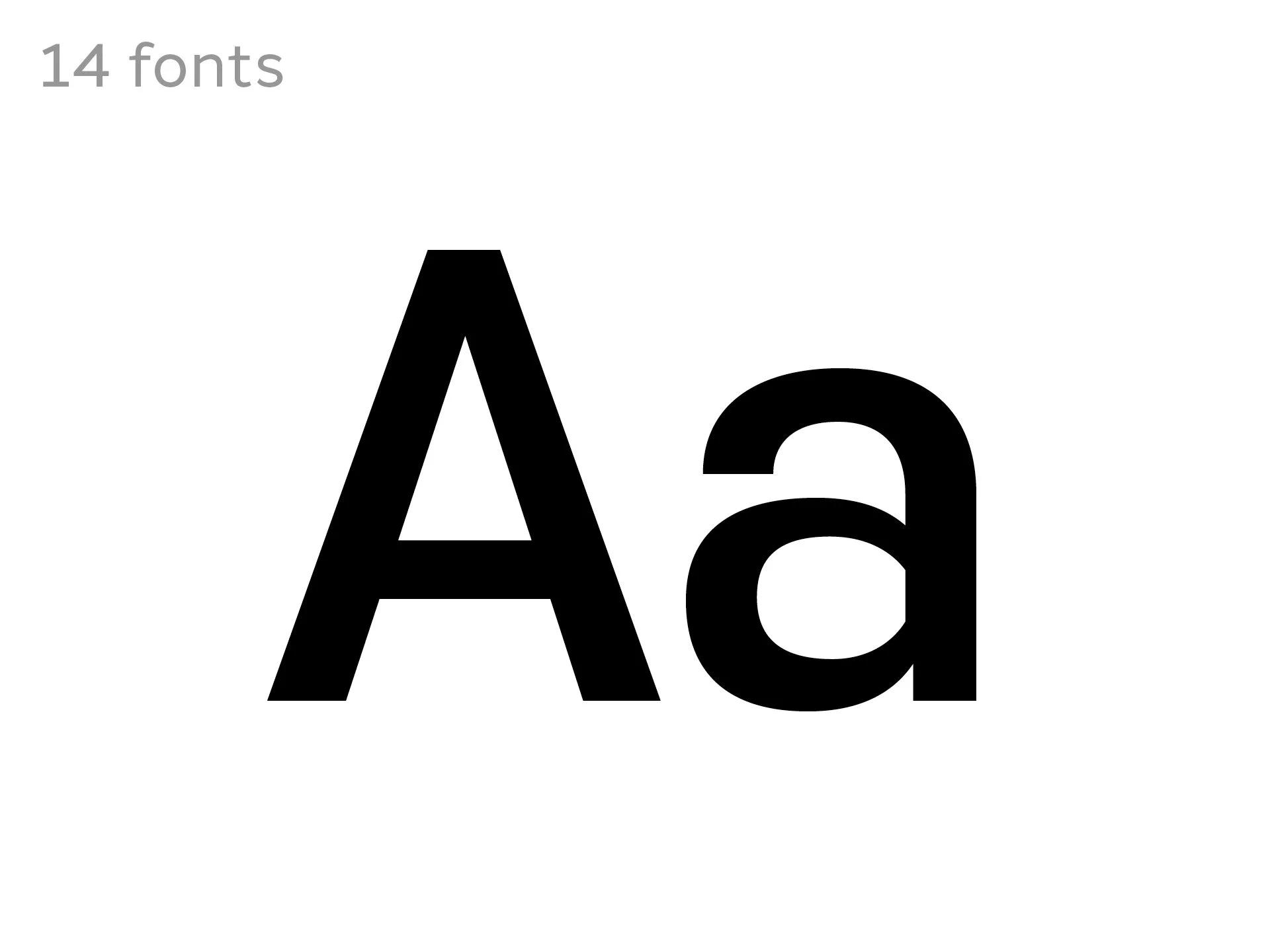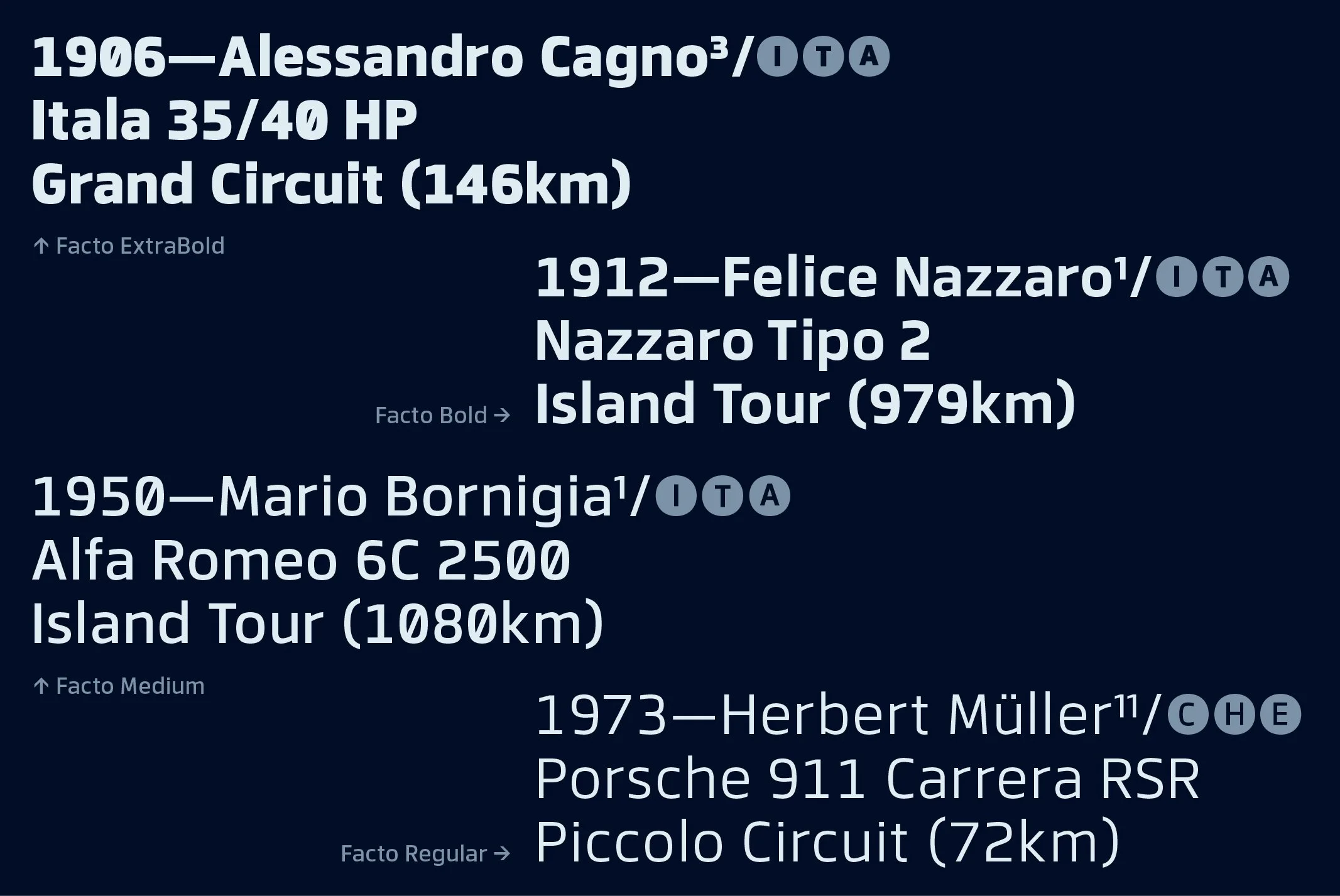
Facto, a sleek and modern typeface, draws inspiration from the broader realm of industrial-style typefaces, embodying a clean and geometric design ethos. With unembellished letterforms and slightly condensed curves, Facto is a testament to simplicity and clarity. Remastered to version 2.0, it not only refines its industrial aesthetic but also introduces enhanced OpenType features, variable support, and improved usability across digital platforms. This makes Facto a versatile choice for a range of design applications, particularly in user interfaces, mobile devices, and websites, where its crisp and legible characteristics shine amidst the demands of modern digital communication.
Details include six weights and obliques, over 700 characters with alternative lowercase a, g, and y. OpenType features consist of eight variations of numerals, including inferiors, superiors, fractions, denominators, numerators, and circled figures. Additional features include case-sensitive forms, ligatures, circle, square, triangle symbols, arrows and language support covering Western, Southern, and Central Europe.